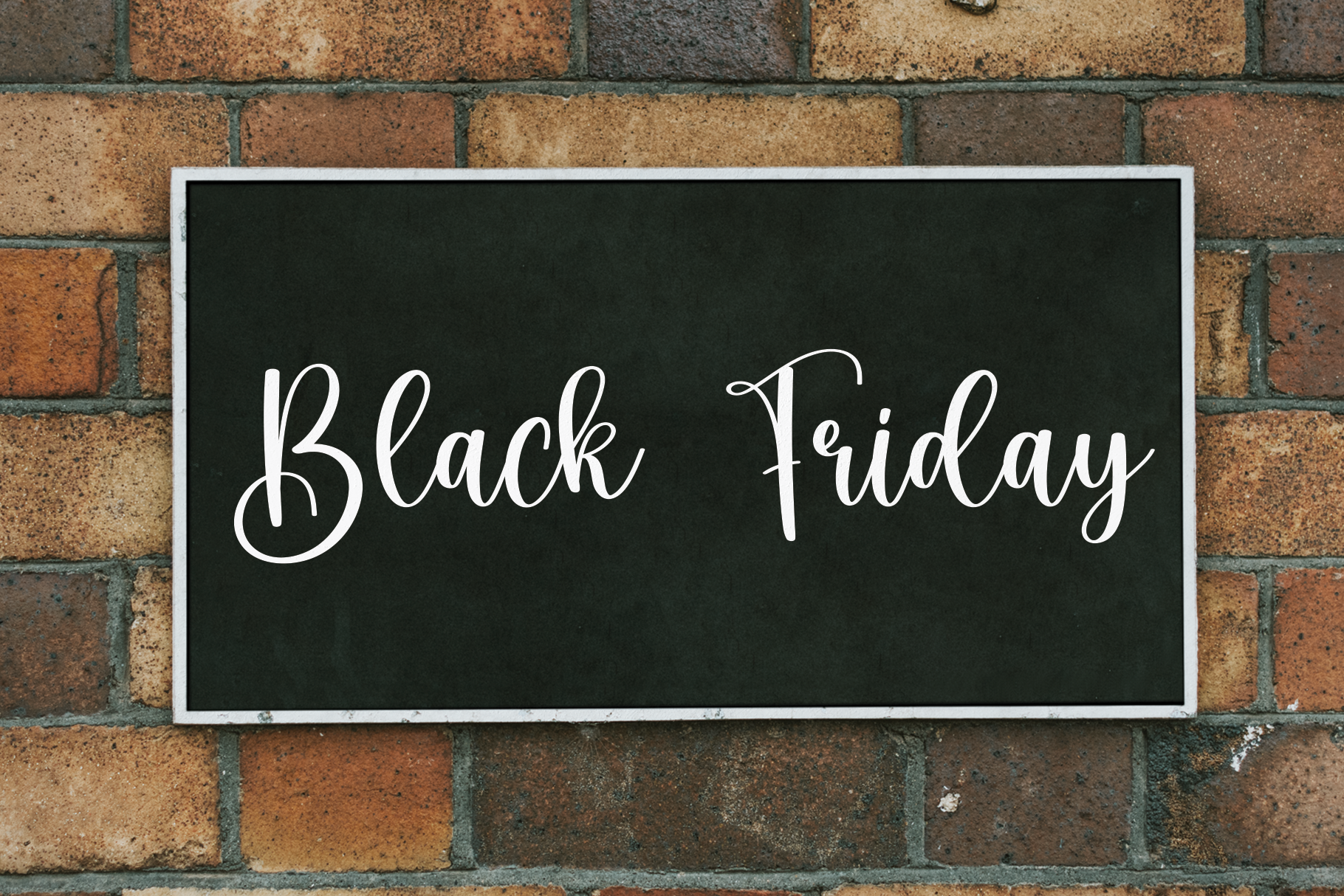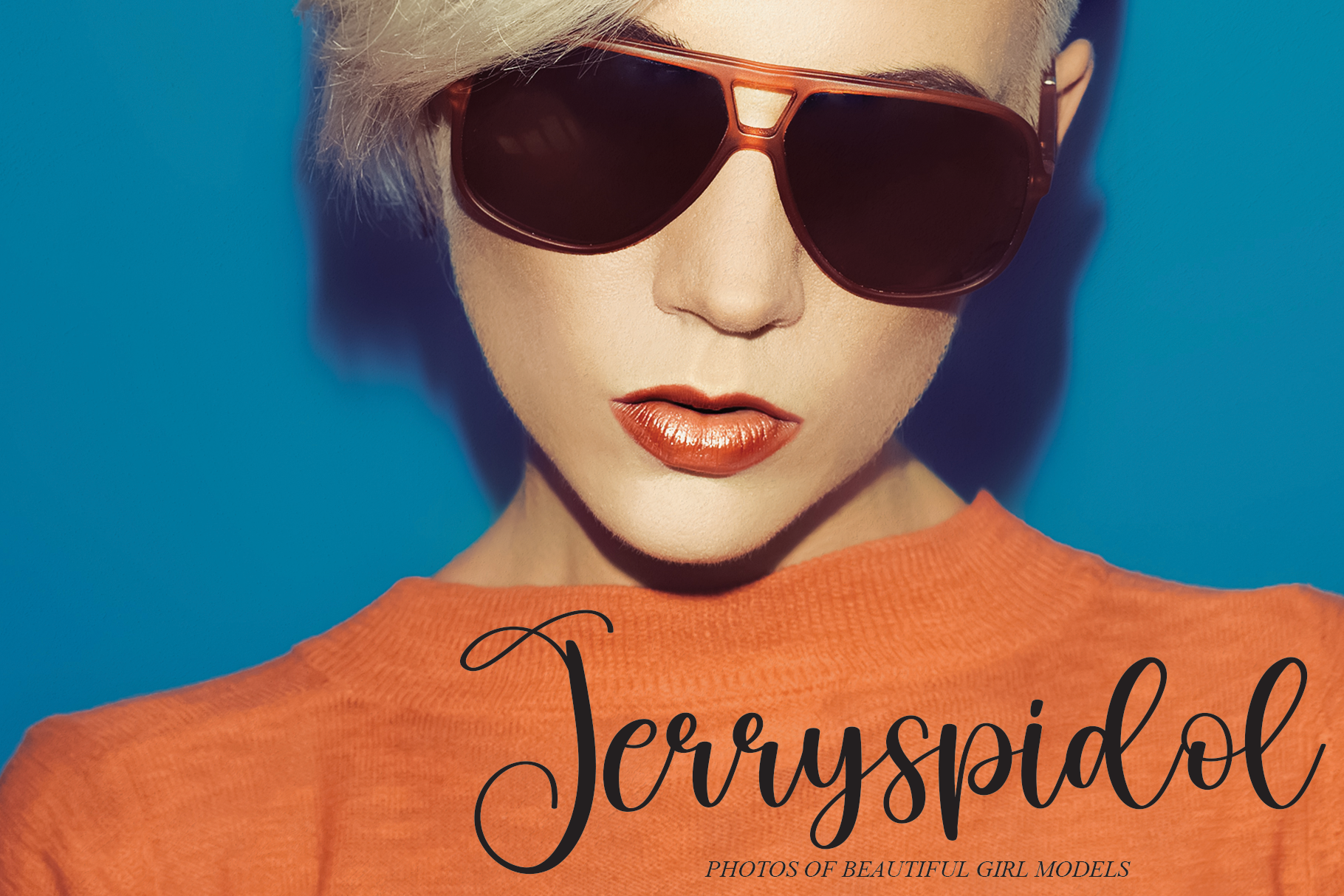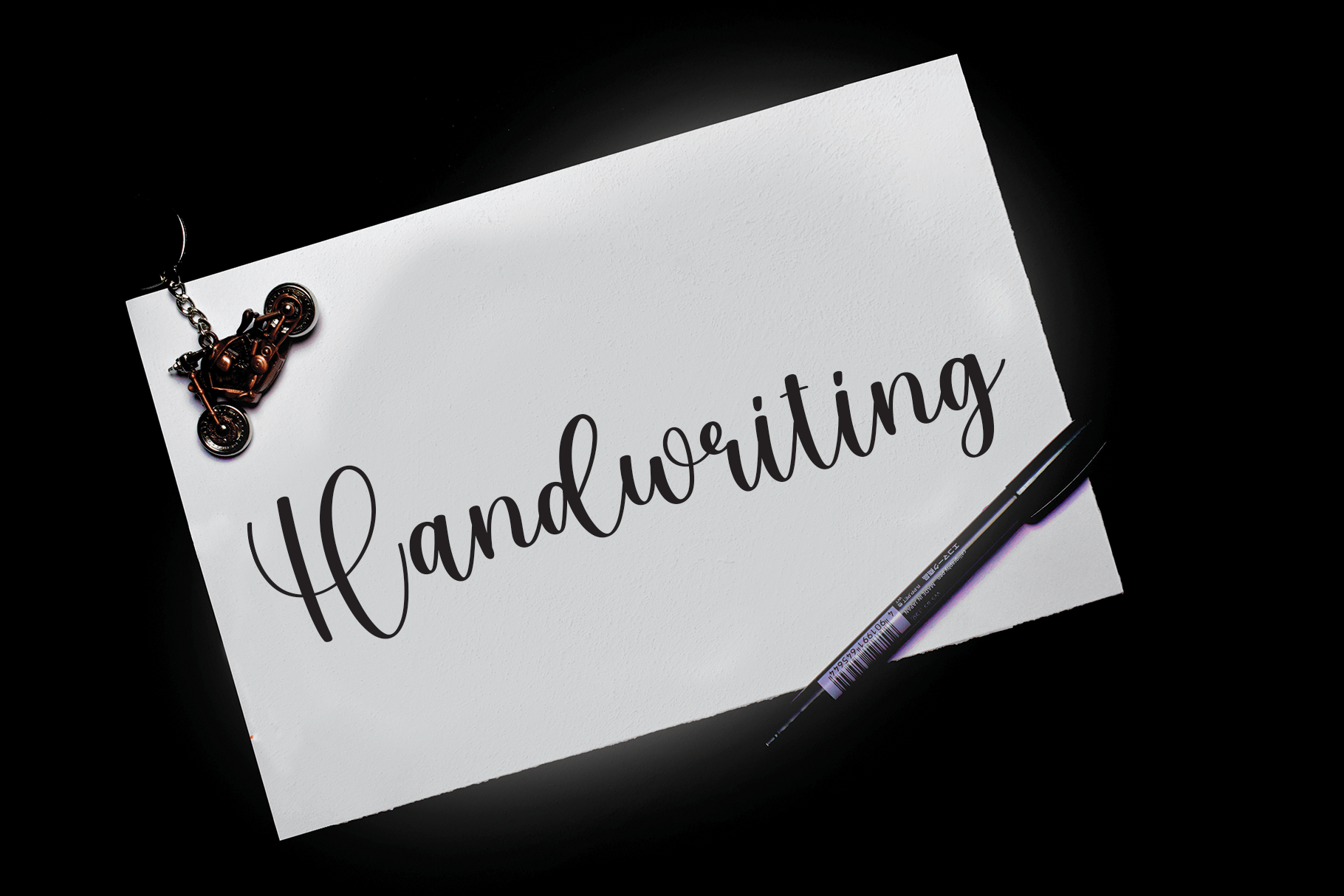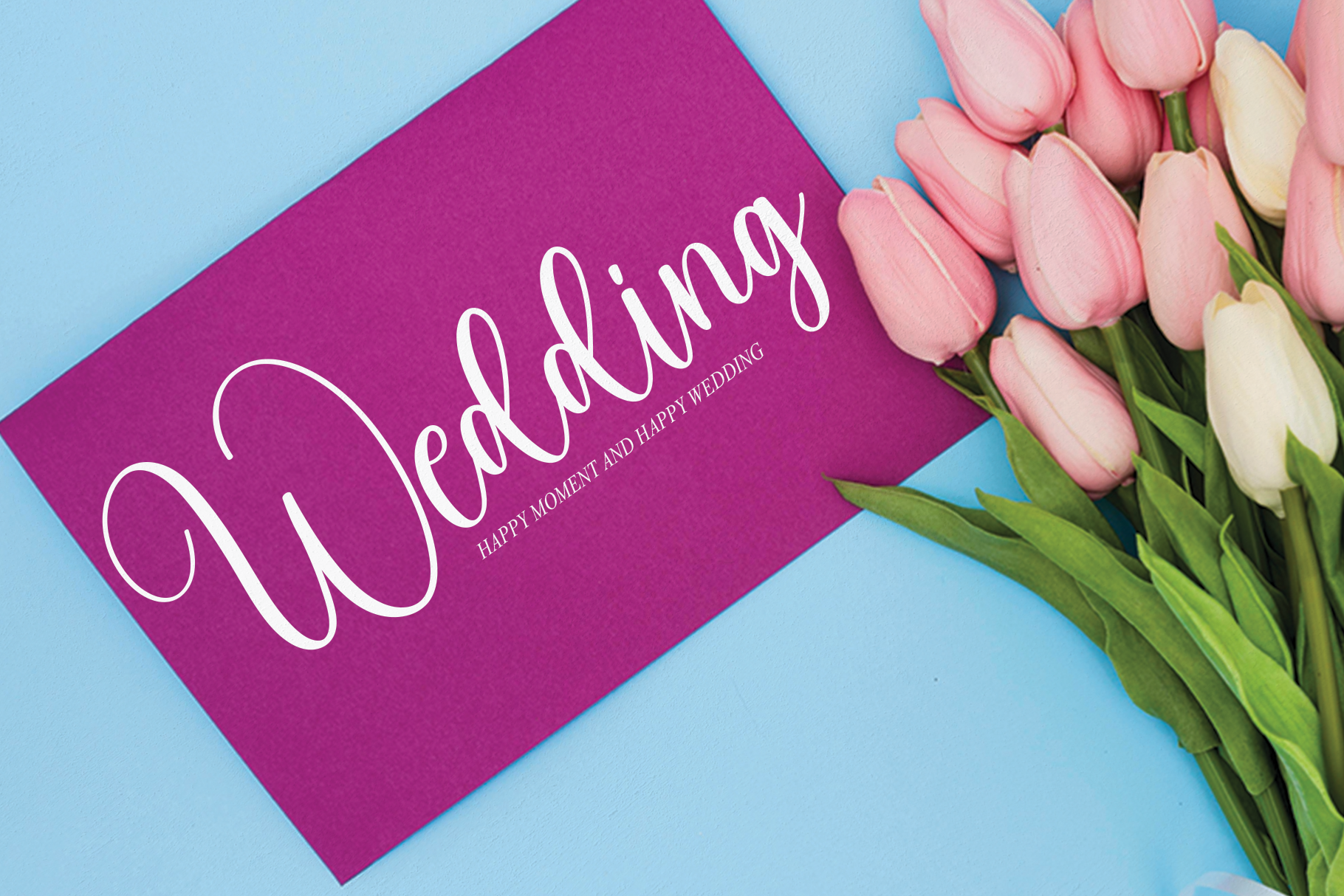
Lovely Font
Lovely Script Font
This is a romantic and sweet calligraphy typeface with characters that dance along the baseline. It will add a luxury spark to any design project that you wish to create!
the latest style letters are perfect for wall displays, wedding invitations, social media post logos, advertisements, product packaging, product designs, labels, photography, watermarks, invitations, stationery, and any project that requires taste handwriting.